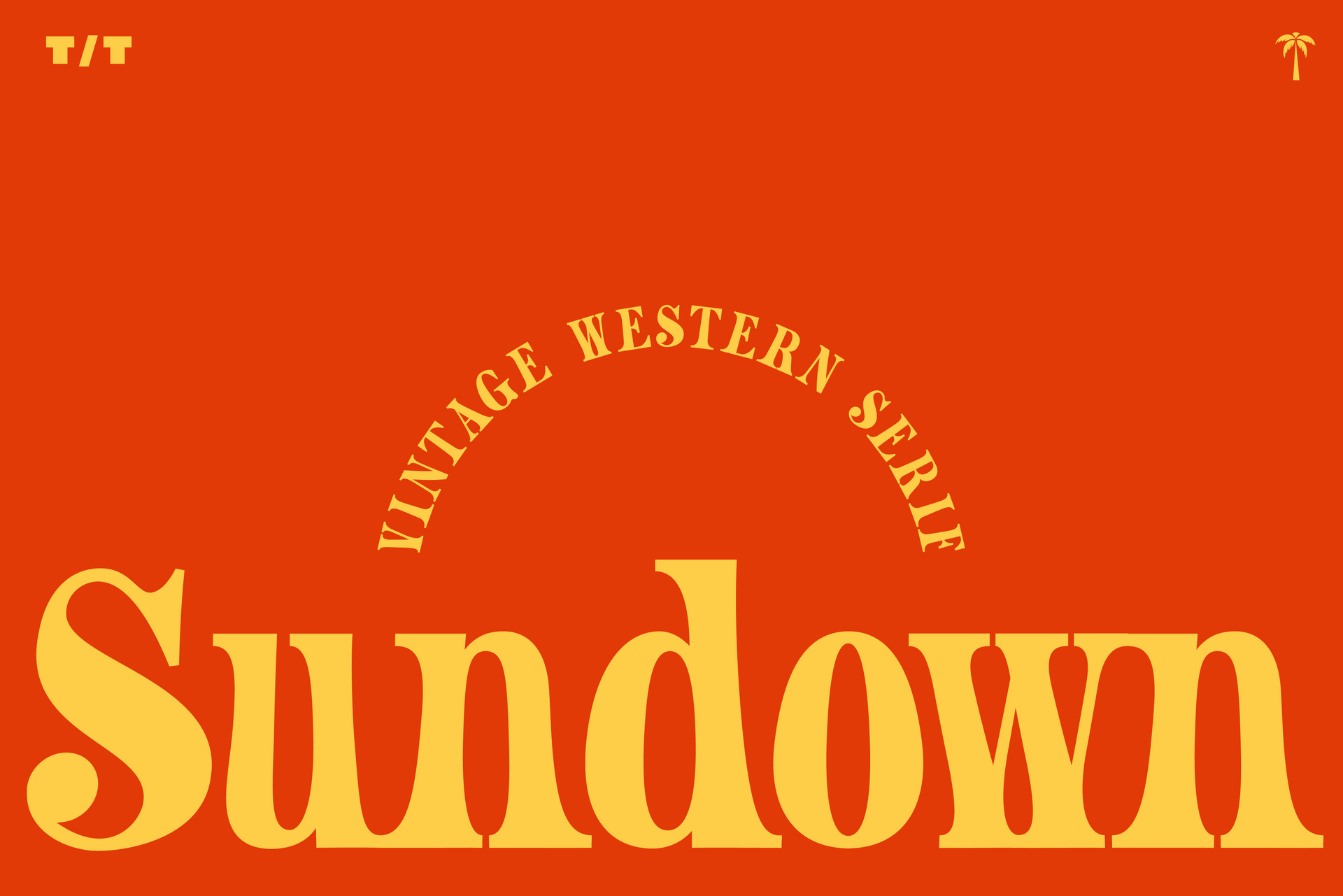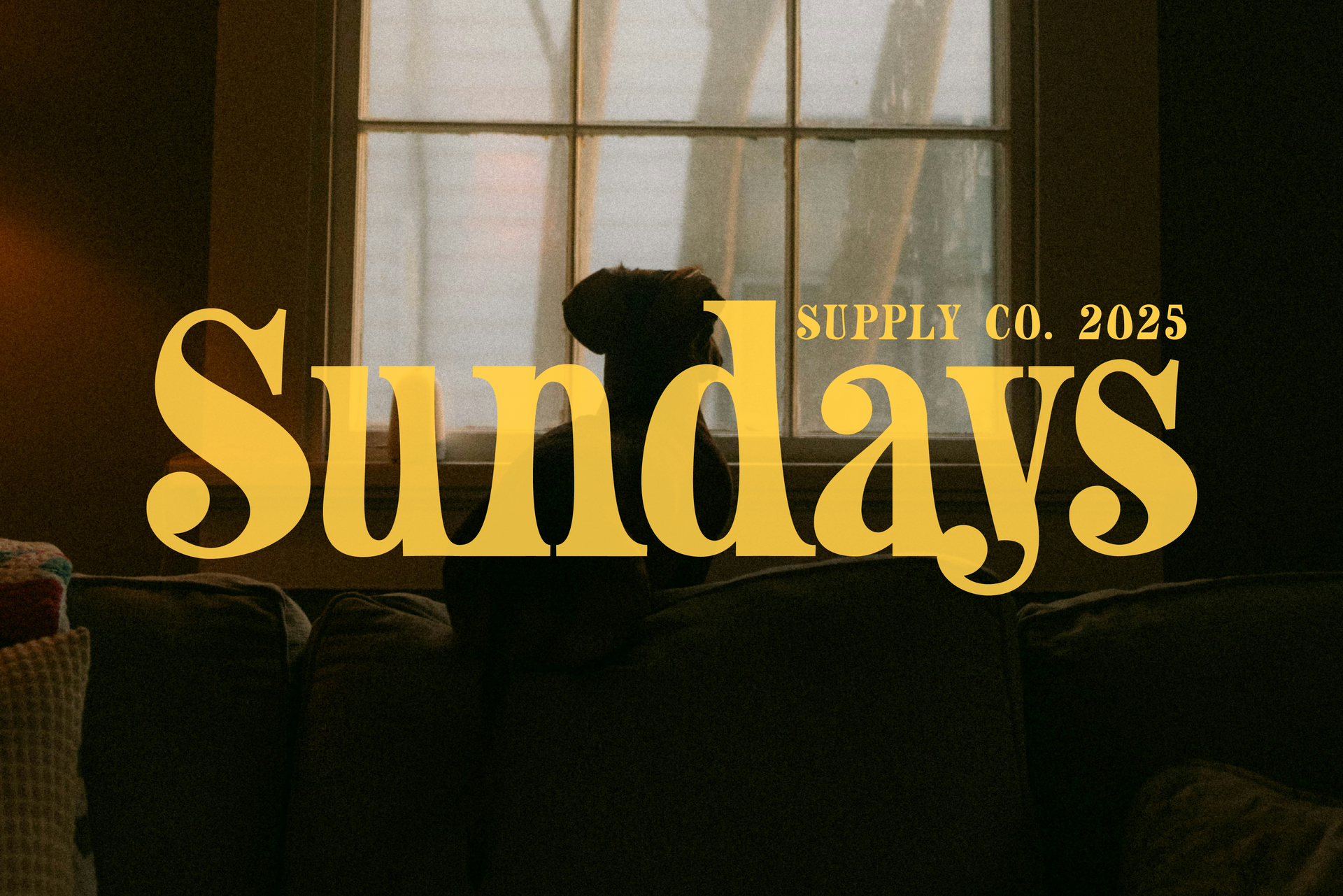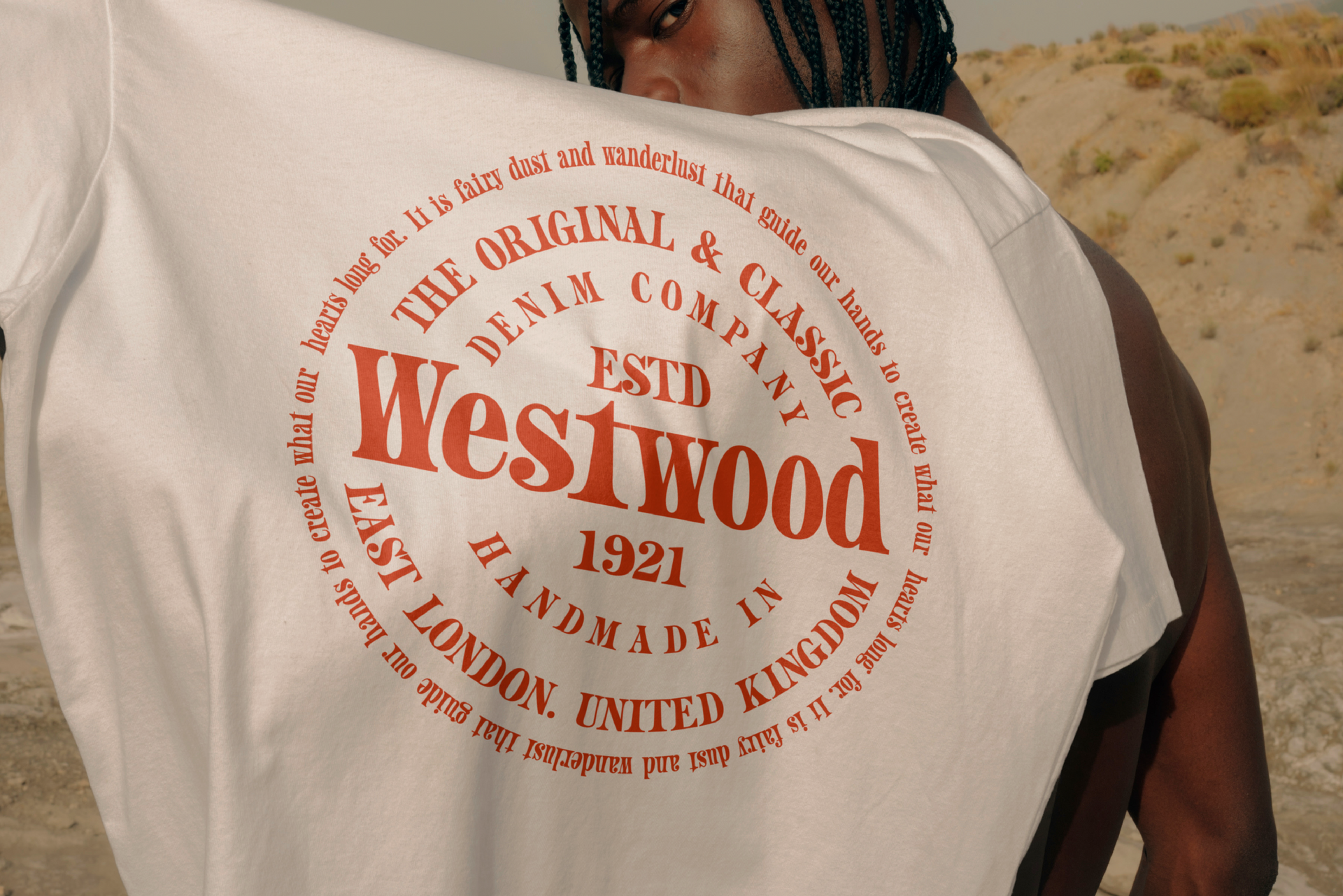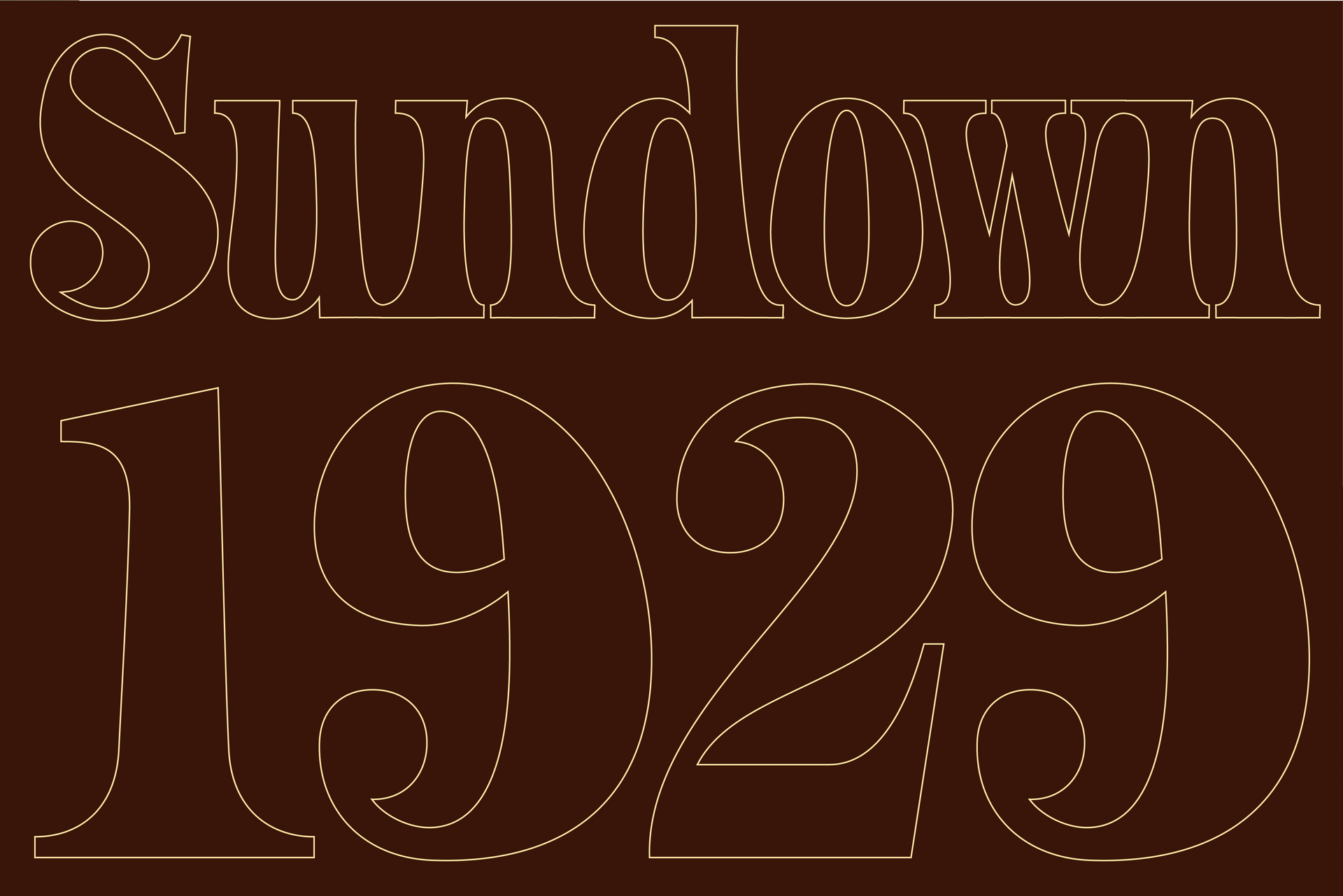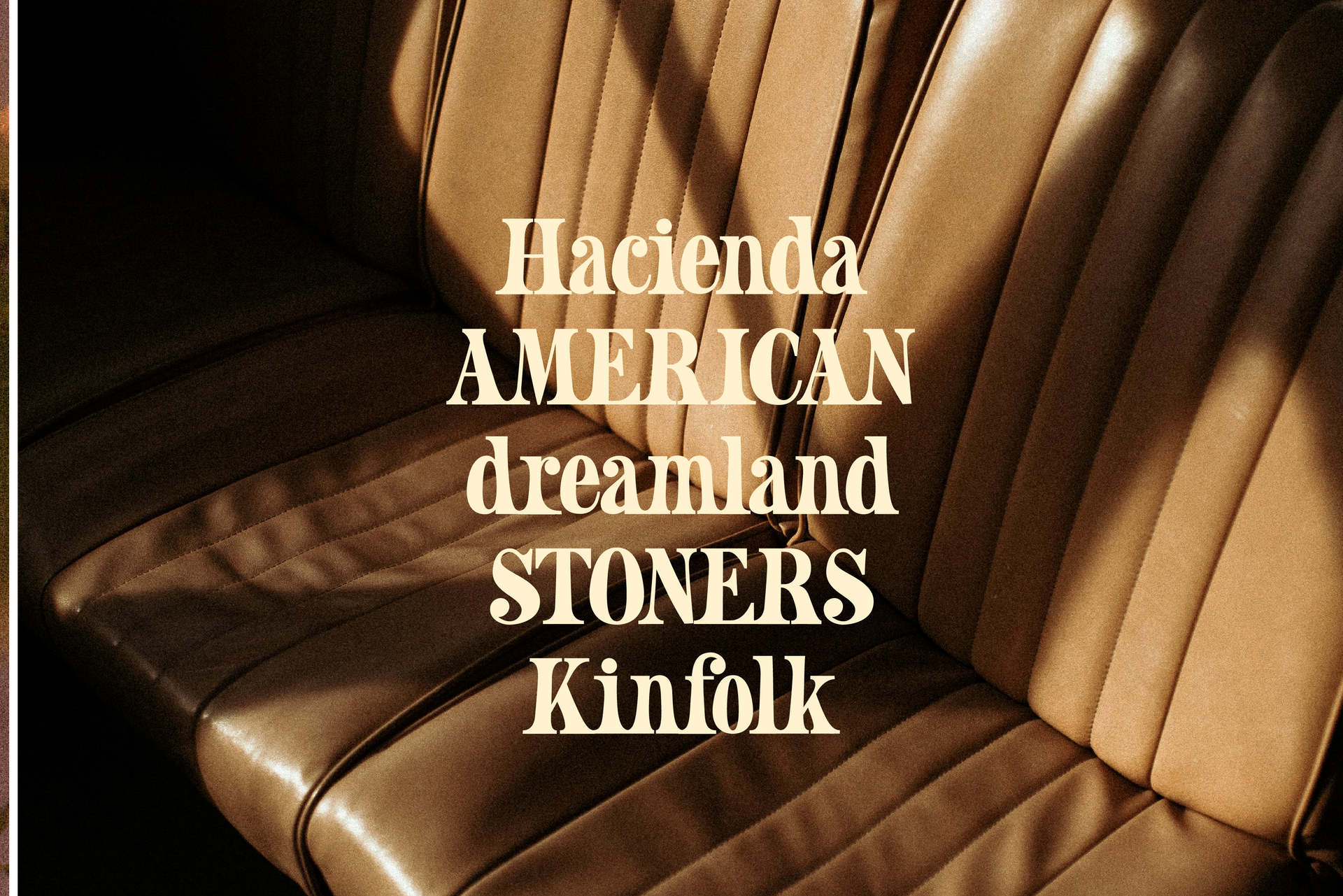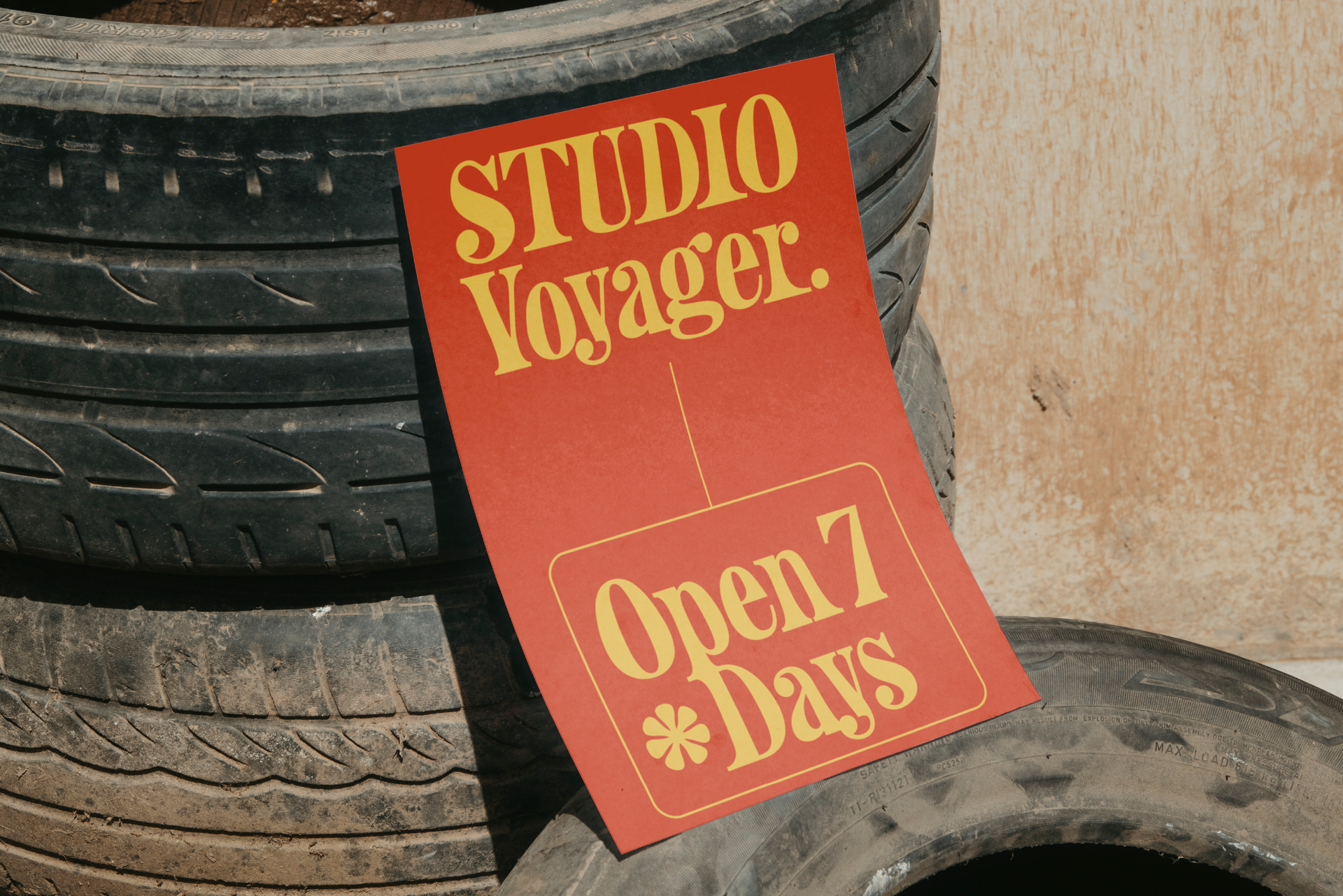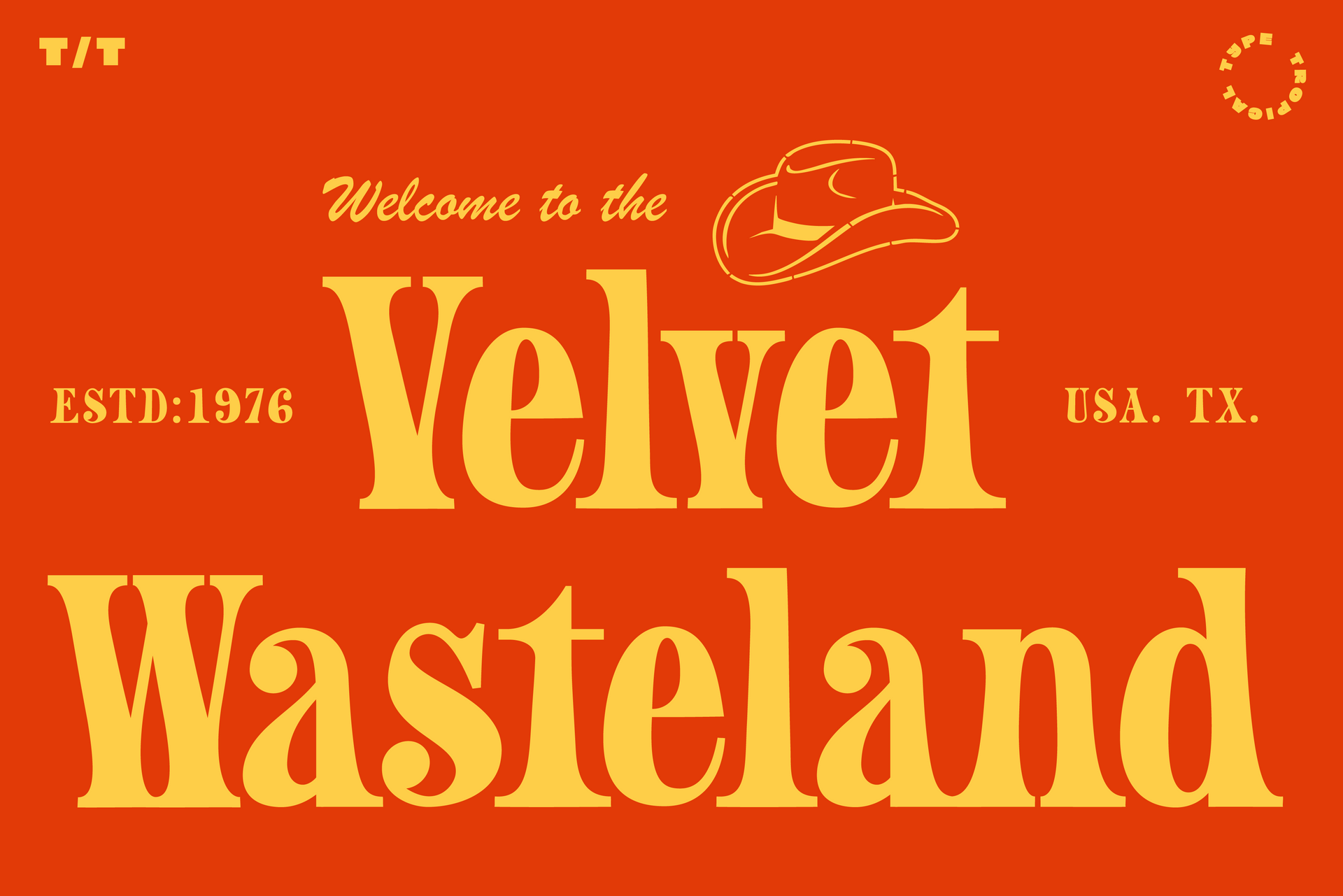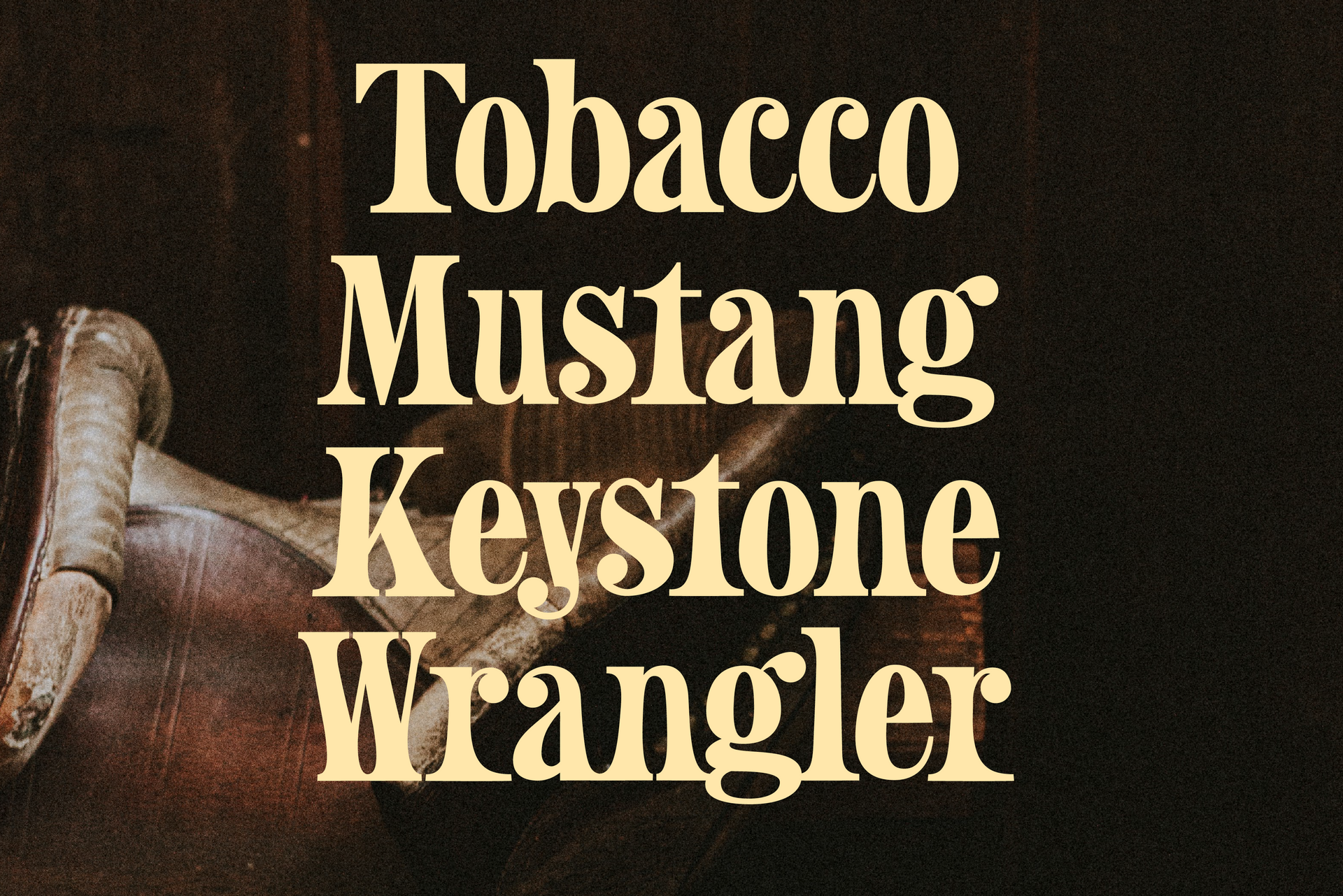
Sundown Serif
Sundown Serif is vintage inspired western typeface that has nostalgia on tap. Western vibes are so hot right now, and vintage is always in, so i've blended the two for maximum effect. The bell bottom curves contrast the more formal serif ends that join together at the bottom in this tightly spaced font to make a smooth flowing effect.